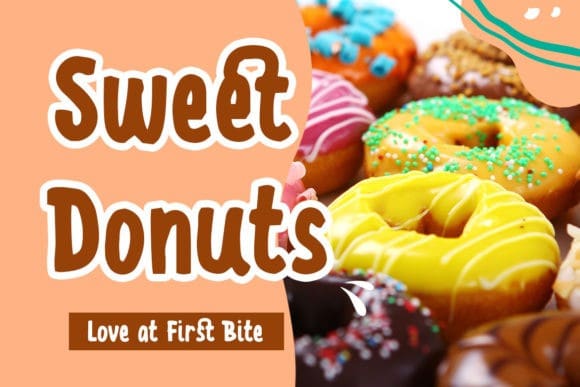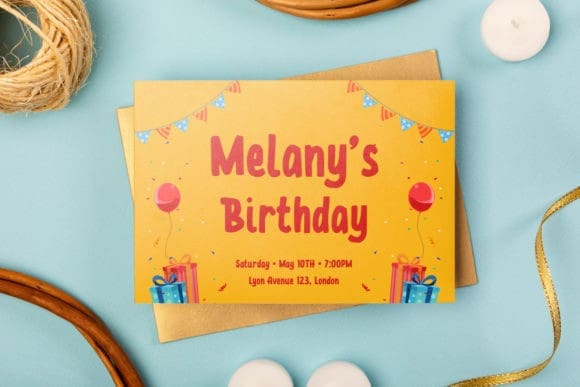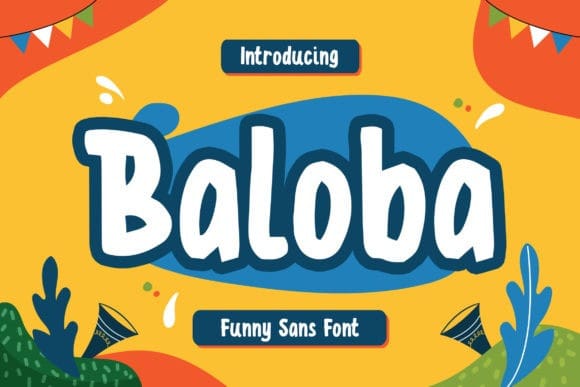
Baloba Playful Font
Baloba Playful Font is a clean, friendly and playful display font. Whether you use it for cartoon related designs, children games or just any creation that requires a lovely touch, this font will be an amazing choice.